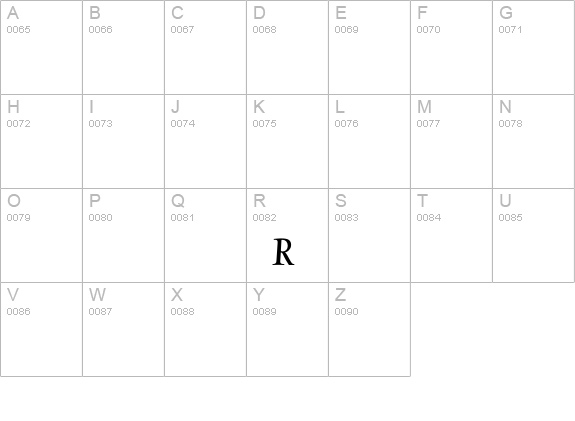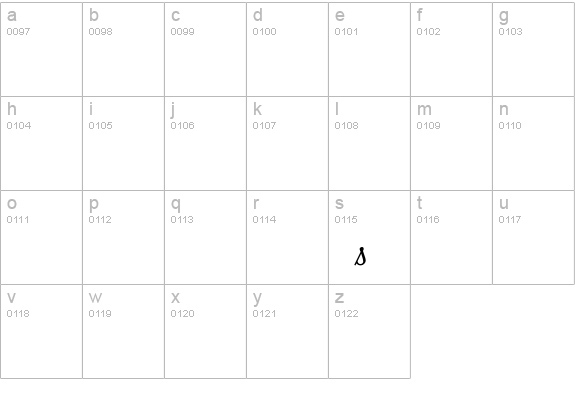
Pan DaMa Expert Italic Font Details
Pan DaMa Expert Italic is a distinctive, italic variant in the Pan typeface family \xE2\x80\x94 well suited to design and typography projects.
Pan DaMa Expert Italic font is a beautiful typeface that exudes elegance and sophistication. With its sleek and slanted letterforms, this font is perfect for adding a touch of flair to any design project. The italic style adds a sense of movement and dynamism, making it an excellent choice for titles, headings, or even body text. What sets Pan DaMa Expert Italic font apart is its versatility. Whether you are designing a logo, creating a poster, or crafting an invitation, this font will elevate your work to new heights. Its refined curves and delicate strokes create a sense of harmony and balance, making it a truly captivating choice. And the best part? Pan DaMa Expert Italic font is available for free! You can easily download it at FontsMarket.com, a trusted and reliable source for high-quality fonts. So, whether you are a professional designer or a creative enthusiast, you can now enjoy the beauty and versatility of this font without any cost. With Pan DaMa Expert Italic font, you can unleash your creativity and transform your designs into works of art. Its timeless appeal and effortless charm will captivate your audience and leave a lasting impression. So why wait? Download Pan DaMa Expert Italic font today and embark on a design journey that is sure to be both visually stunning and captivating.